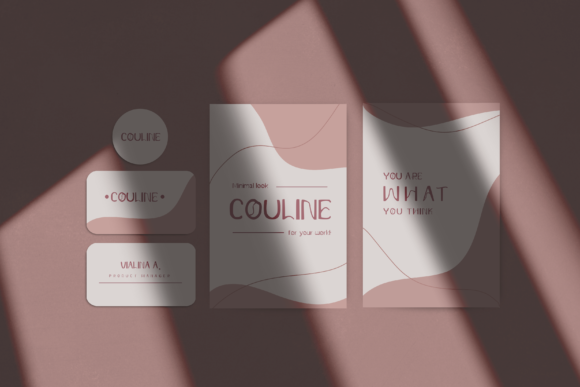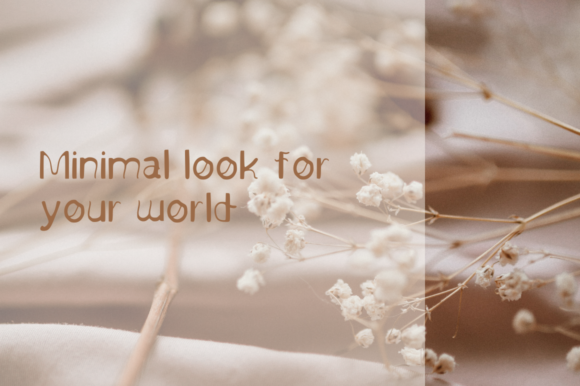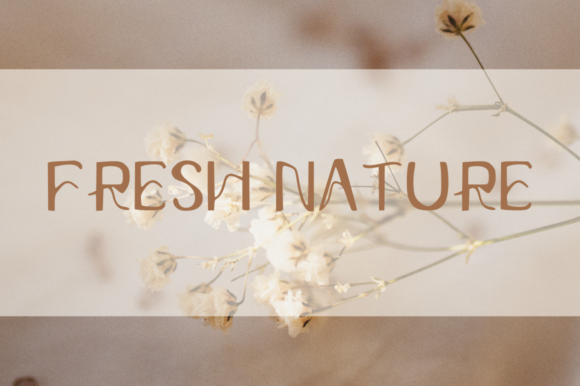
Couline Font
Introducing Couline, a captivating script font that effortlessly combines minimalist elegance with handwritten charm, making it an ideal choice for a multitude of design projects. From branding to posters, social media content to product design, Couline’s versatility knows no bounds, allowing it to shine in a diverse range of applications with its unique blend of style and sophistication.
At the heart of Couline’s appeal lies its minimalist design, which brings a sense of modernity and refinement to any project. Each letter is carefully crafted to exude understated elegance, while maintaining the fluidity and organic feel characteristic of handwritten fonts. This balance between simplicity and sophistication ensures that Couline stands out without overpowering the overall aesthetic of your design.
One of the key features that sets Couline apart is its vector-based construction, which ensures sharp and precise letterforms regardless of size or scale. Whether used in branding materials, posters, or product packaging, Couline maintains its clarity and legibility, making it a reliable choice for projects that demand professional results. This scalability also makes Couline suitable for digital applications, where it can be resized without sacrificing quality or readability.
In branding initiatives, Couline offers a fresh and contemporary option for logo design, typography, and visual identity systems. Its clean lines and refined curves make it well-suited for conveying a sense of sophistication and style, while its handwritten aesthetic adds a personal touch that resonates with audiences. Whether applied to business cards, websites, or advertising materials, Couline helps brands establish a cohesive and memorable presence in the marketplace.
Similarly, Couline’s versatility makes it a standout choice for poster design, where its minimalist elegance can command attention and communicate messages with clarity. Whether promoting events, products, or artistic endeavors, Couline adds a touch of modern flair that enhances the overall visual impact of the poster. Its flexibility allows designers to experiment with different layouts and compositions, ensuring that each poster stands out in a crowded landscape.
In the realm of social media content, Couline provides a stylish and engaging option for captions, quotes, and promotional graphics. Its handwritten appearance adds warmth and personality to posts, fostering connection and engagement with audiences. Whether used on Instagram, Facebook, or Twitter, Couline helps content creators express themselves authentically while maintaining a cohesive and visually appealing feed.
Finally, in product design, Couline’s clean lines and versatile aesthetic make it an excellent choice for packaging, labels, and product displays. Its minimalist design enhances brand identity and elevates the overall presentation of the product, while its vector-based construction ensures that text remains sharp and legible, even on small or intricate surfaces.
In conclusion, Couline is more than just a font—it’s a versatile design tool that empowers creatives to elevate their projects with its minimalist elegance and handwritten charm. With its ability to seamlessly integrate into a wide range of applications, Couline is sure to become a staple in the toolkit of designers seeking to make a statement with their typography.